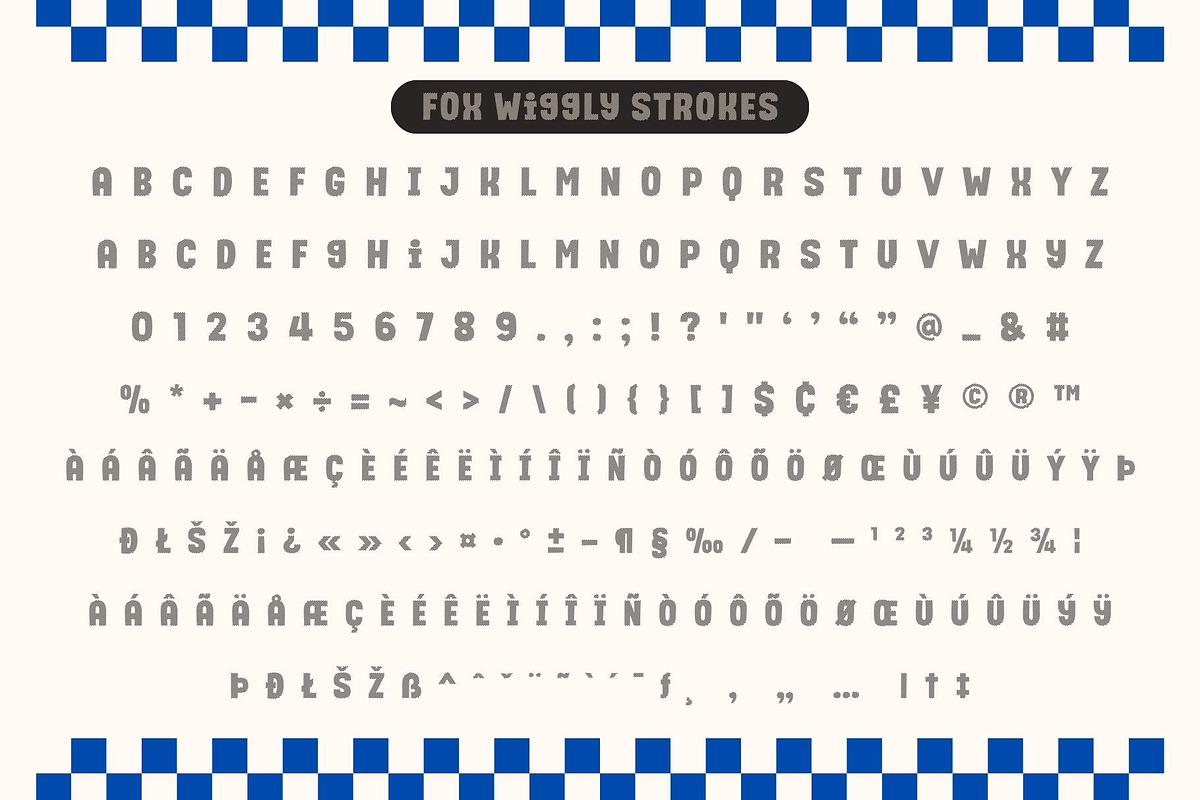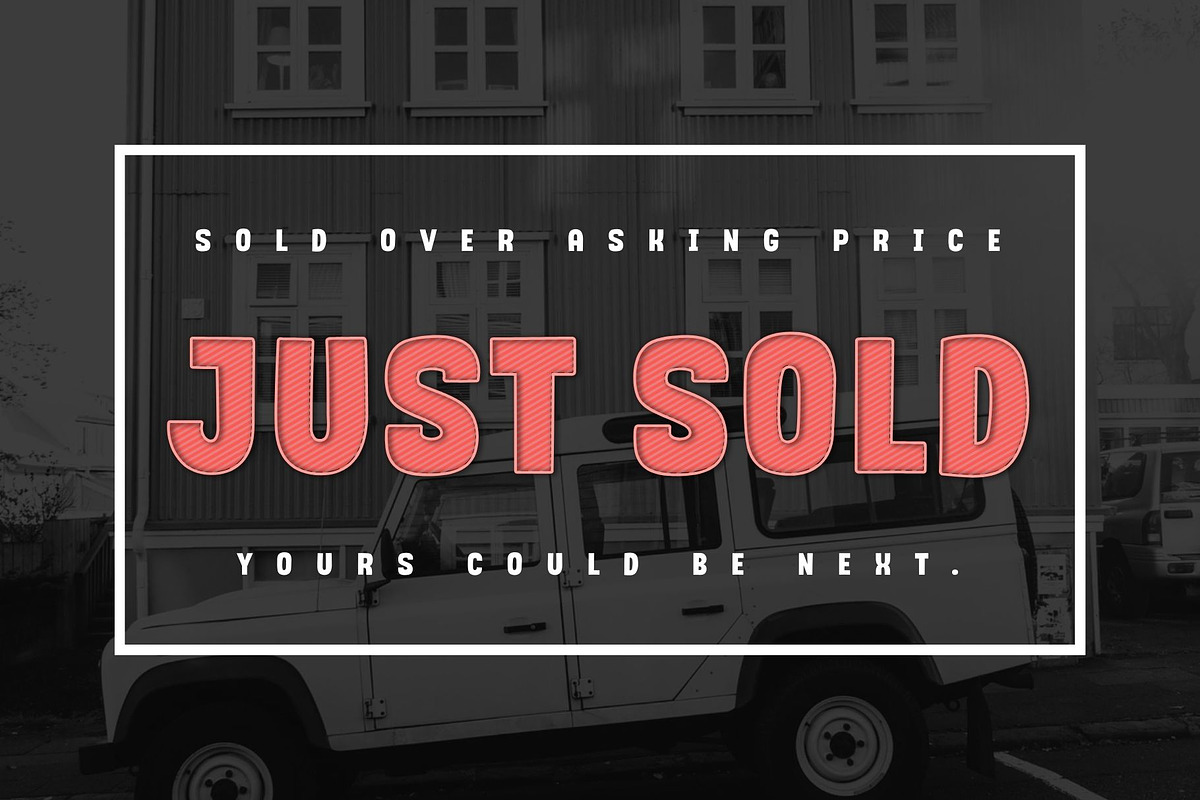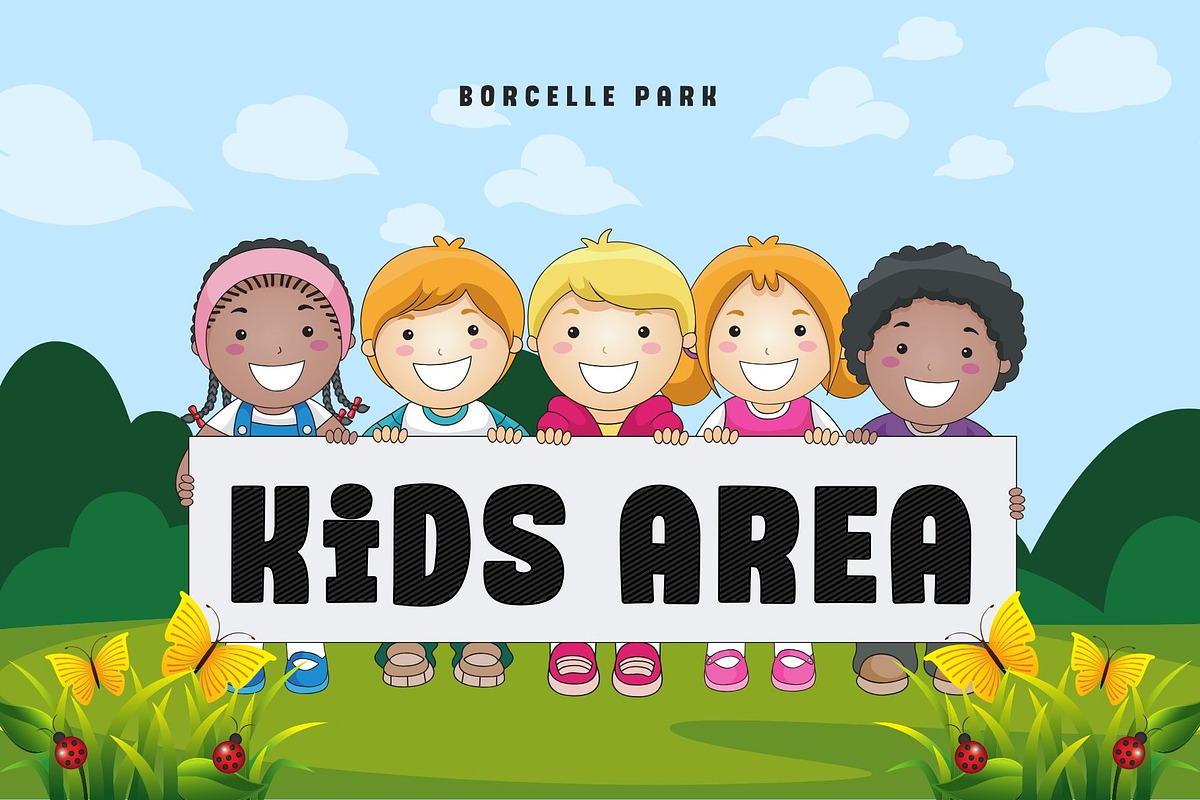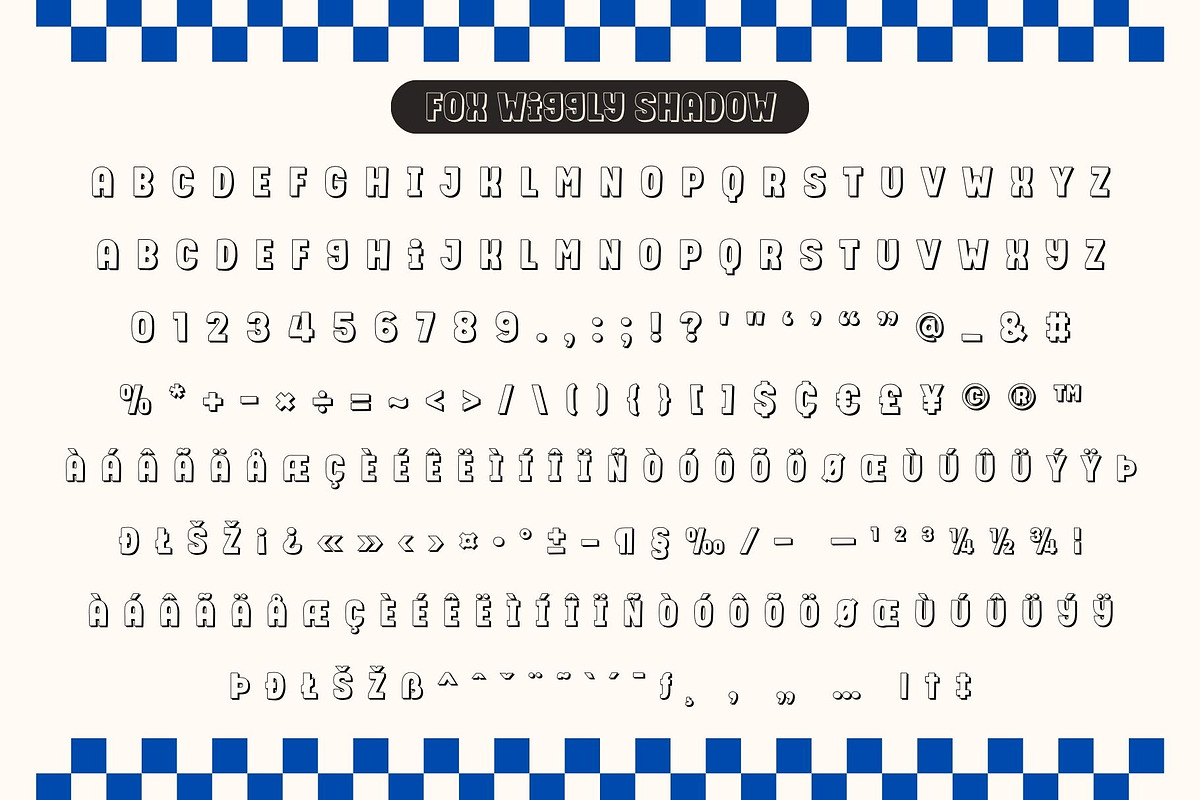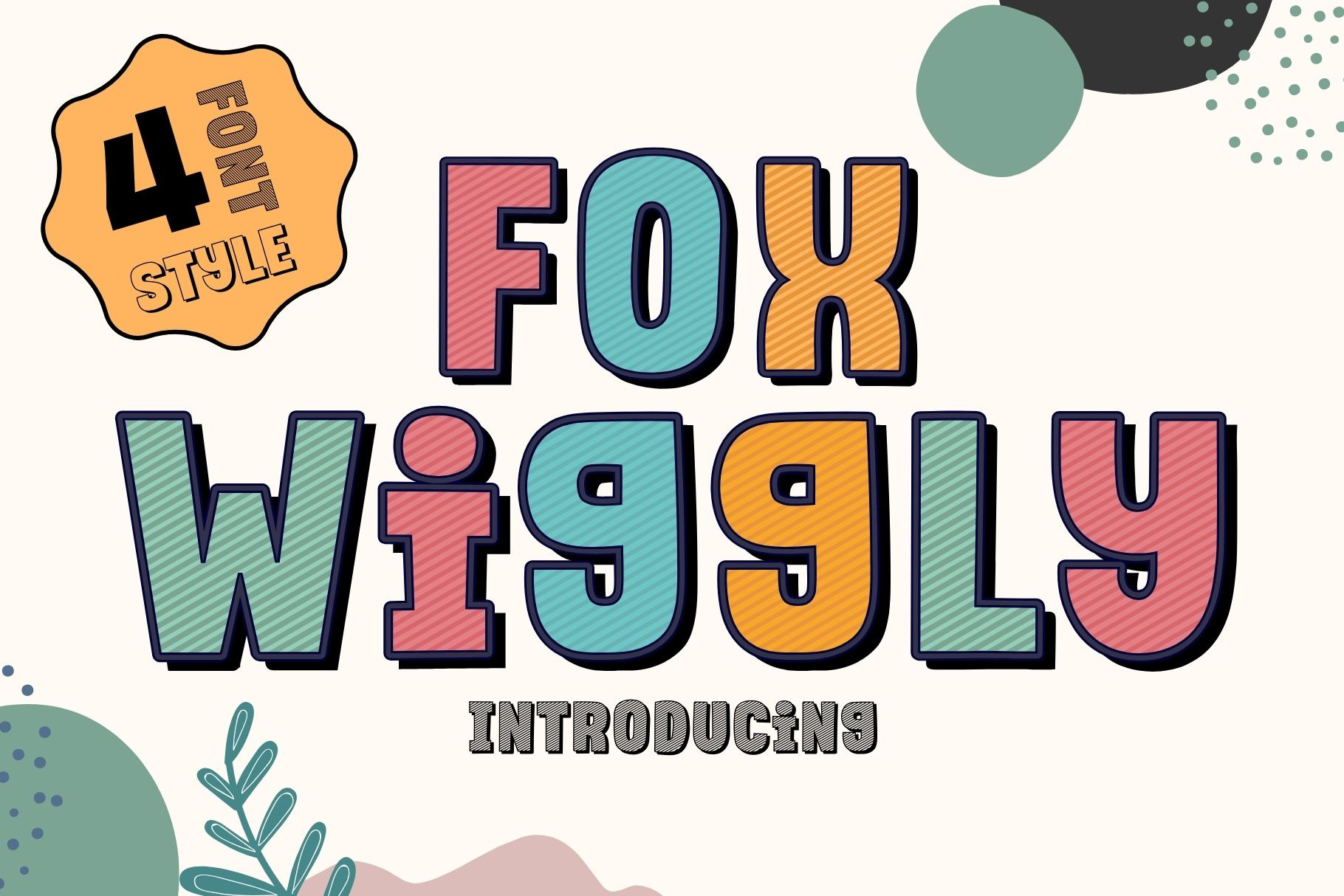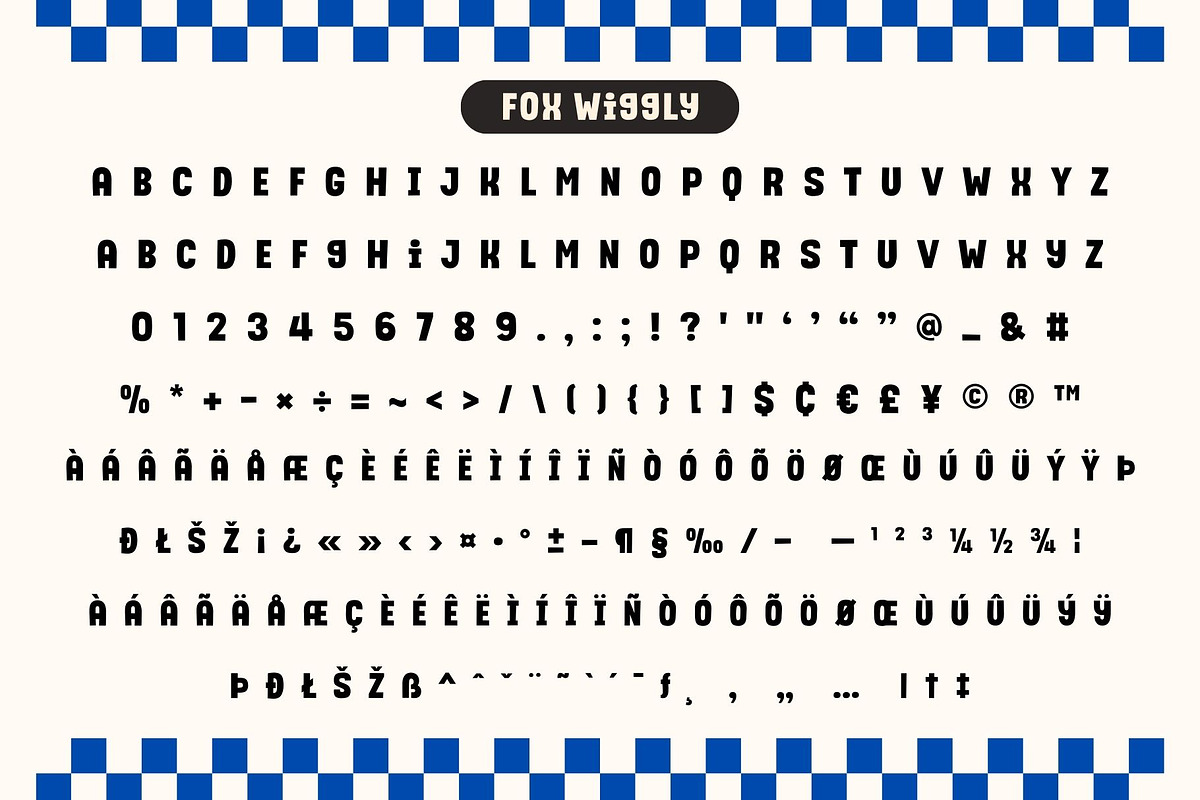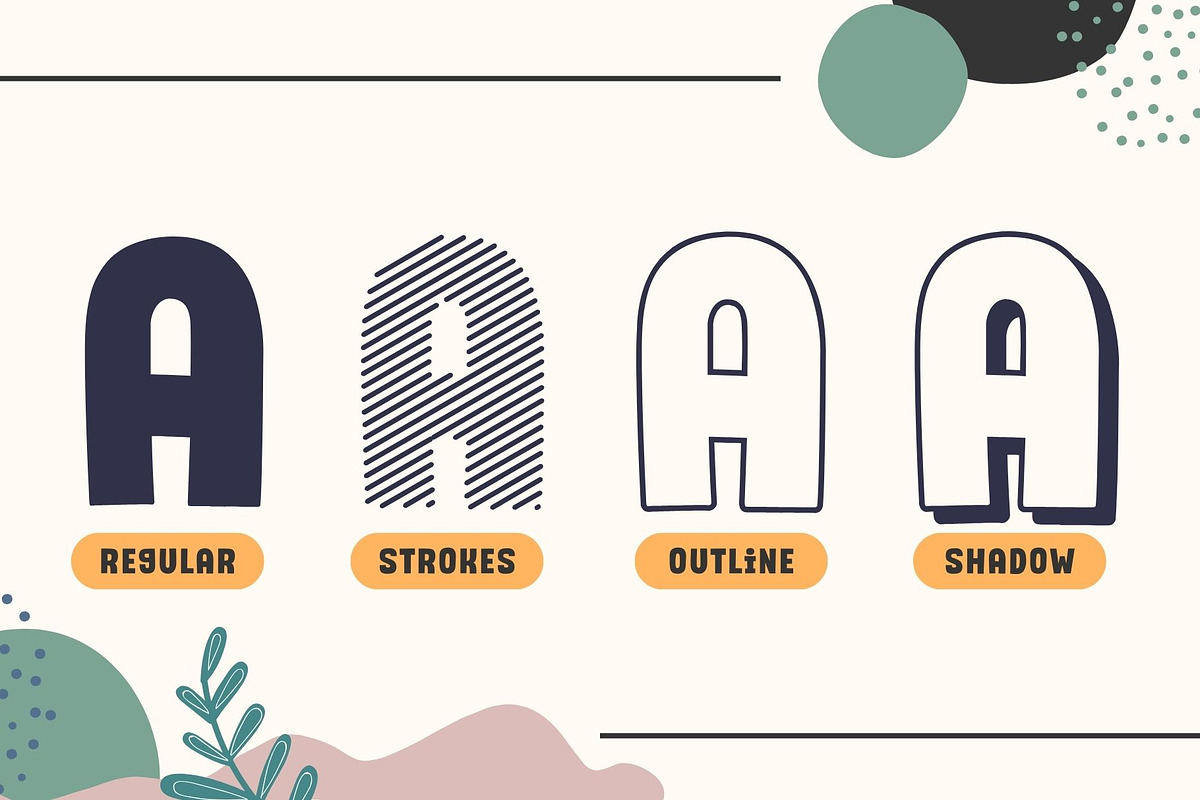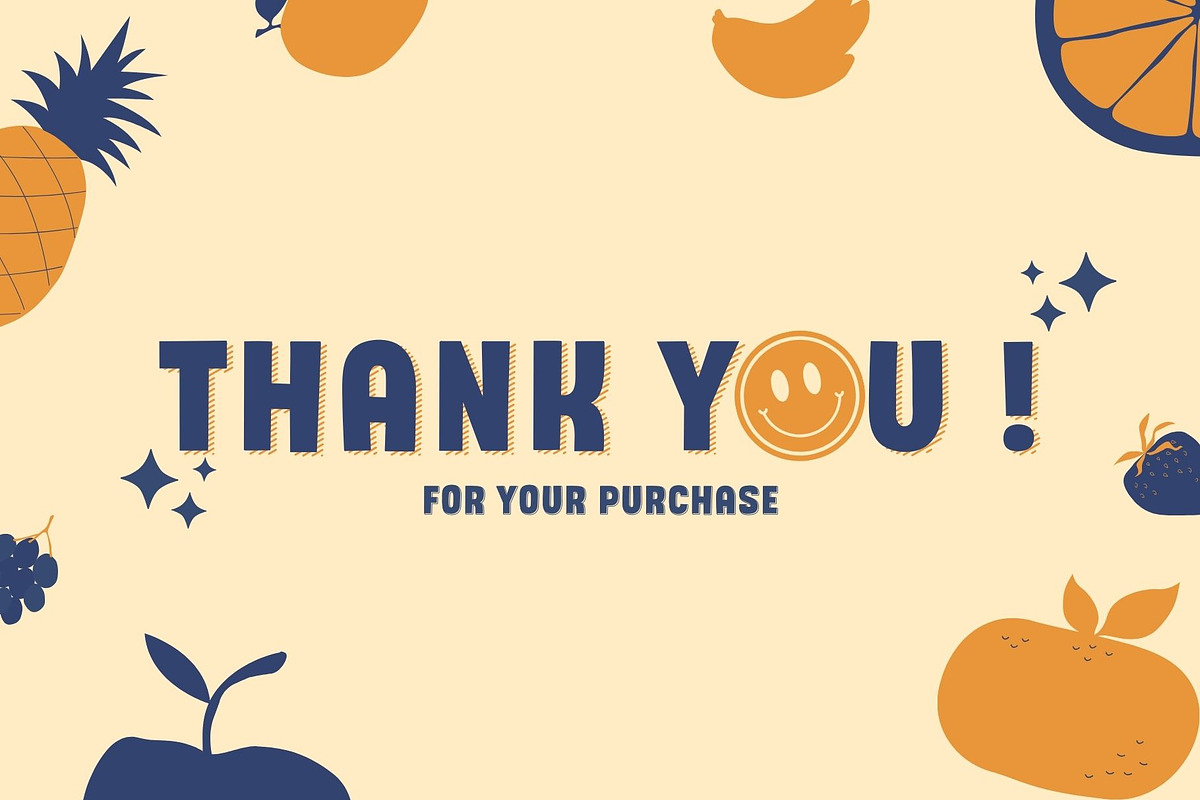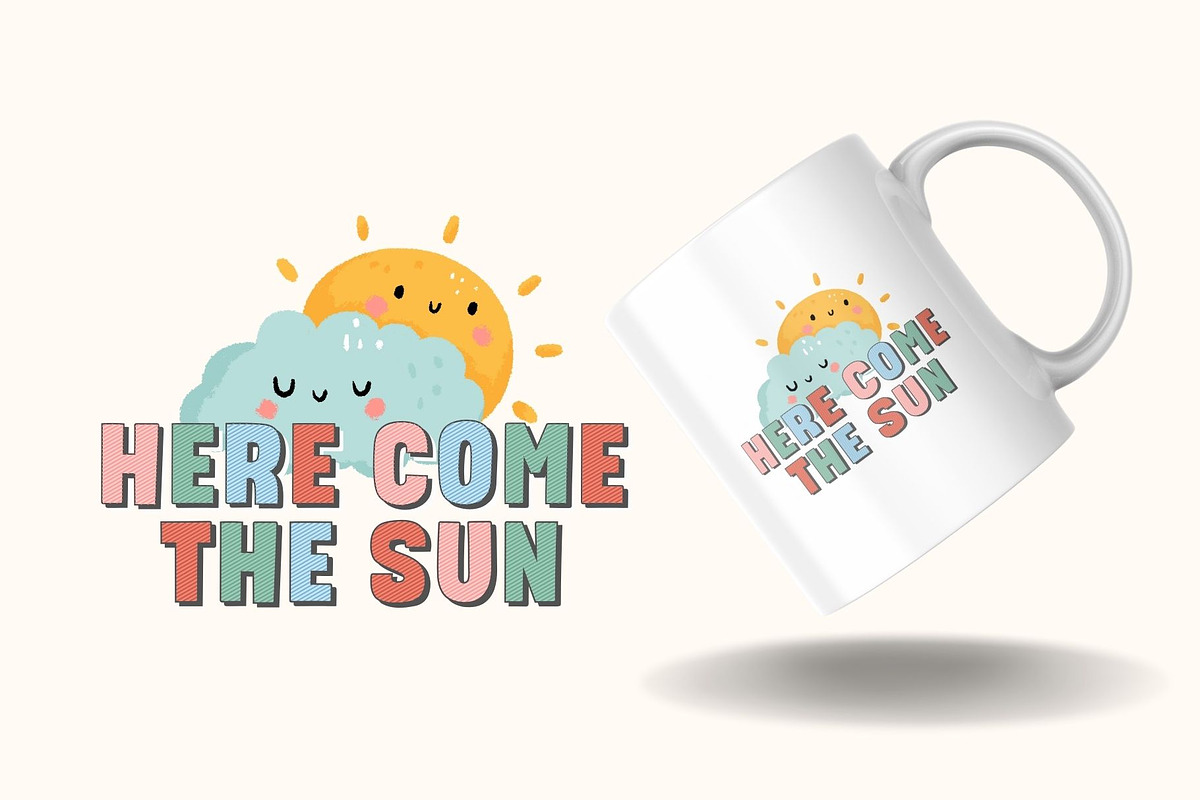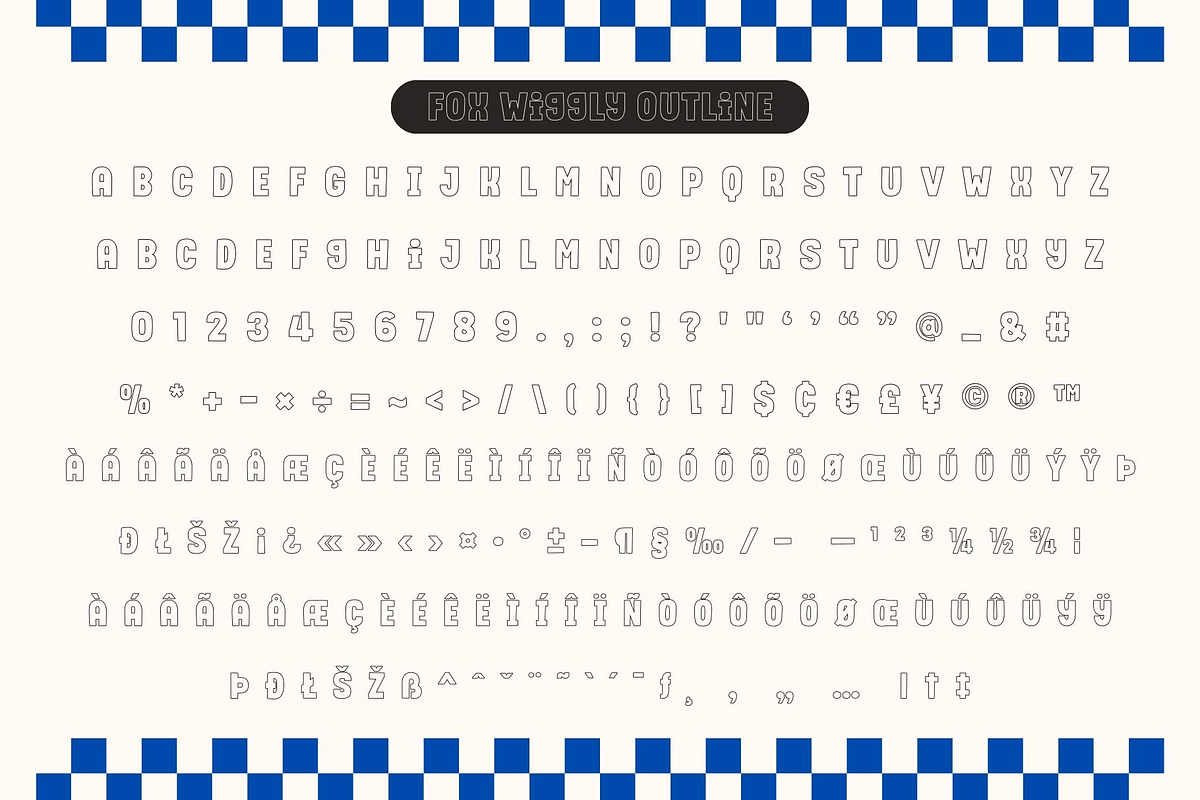
Fox Wiggly 4 Font Style
Fox Wiggly is a fun and playful font that comes with four unique styles: Regular, Strokes, Outline, and Shadow. These variations allow for creative and dynamic typography, making your designs more lively and eye-catching.
⭐ Bold and dimensional letterforms, perfect for fun and youthful designs
⭐ Shadow and stroke effects add depth and movement to the text
⭐ The striped "Strokes" style offers a fresh and unique look
Fox Wiggly is ideal for posters, advertisements, invitations, children’s designs, playful branding, and any project that needs a vibrant and energetic touch.
Bring your text to life with Fox Wiggly and make your designs stand out!